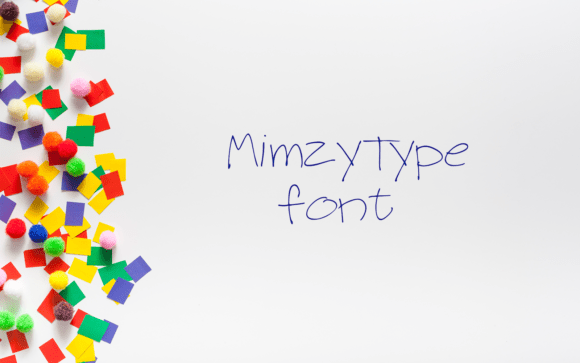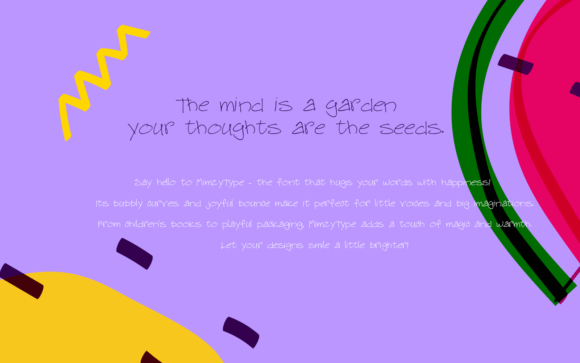
Mimzy Type Font
About the Mimzy Type Font
Welcome to the world of Mimzy Type Font, a typeface that will inspire your next great project. MimzyType is a whimsical and casual handwritten font that feels like a doodle straight from a notebook. With its tall, narrow characters and natural flow, it’s ideal for children’s projects, school worksheets, craft labels, and anything that needs a friendly, personal touch. MimzyType’s charm lies in its authenticity—it’s imperfect in all the right ways.
MimzyType’s friendly, informal style makes it perfect for branding projects targeting a young audience, packaging for children’s products, or short headlines on playful posters. It also works well for social media graphics needing a hand-drawn feel. However, its casual nature makes it unsuitable for large blocks of text, body copy, or applications requiring high readability like websites or UI. Avoid using it for formal documents or projects needing a sophisticated aesthetic.
Pairing MimzyType with a clean sans-serif like Open Sans for body text provides a strong contrast, balancing the handwritten informality with modern legibility. For a more playful feel, a geometric sans-serif such as Futura can create a visually interesting juxtaposition. Consider pairing it with a delicate script font for invitations or other special projects needing a touch of elegance.
Its core personality is undeniably whimsical and approachable, conveying a sense of childlike wonder and handcrafted authenticity. This makes it particularly effective for brands focused on creativity, childhood, or handmade goods.
Mimzy Type Font Usage Examples
Mimzy Type Font Example